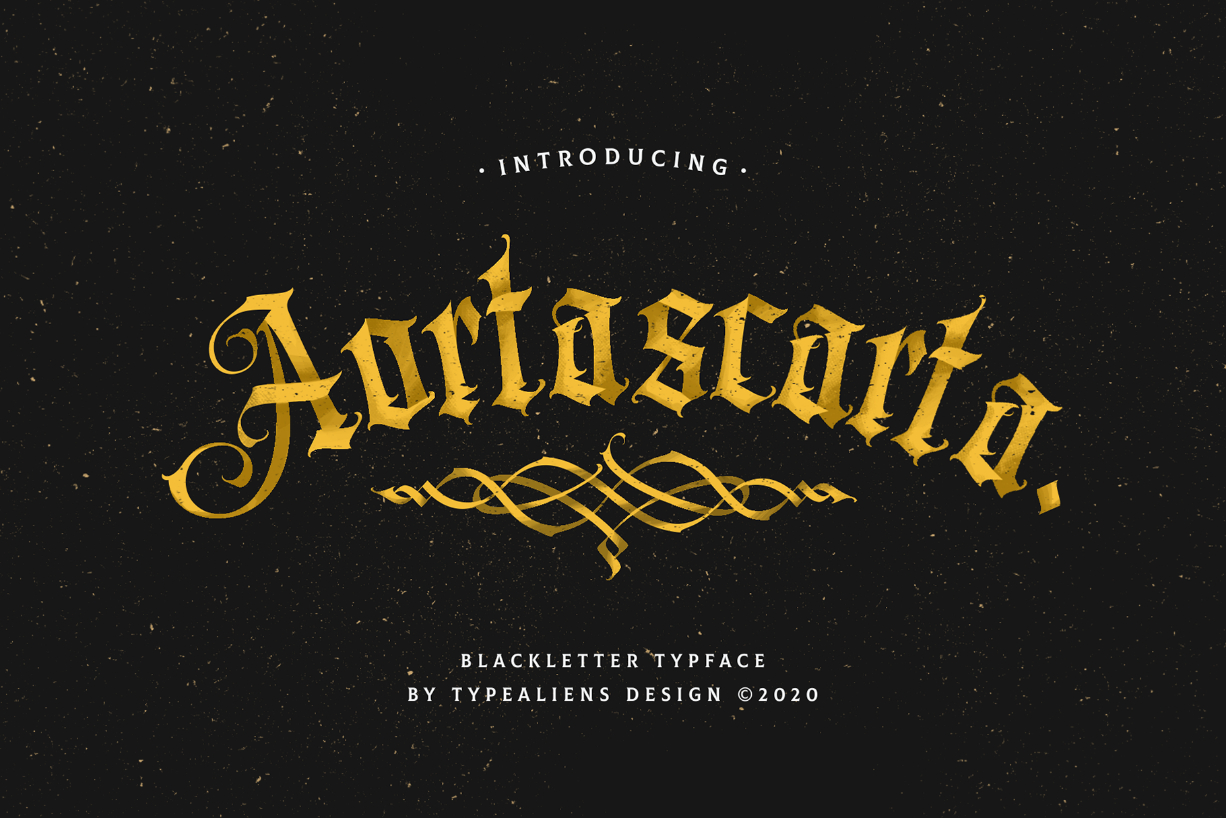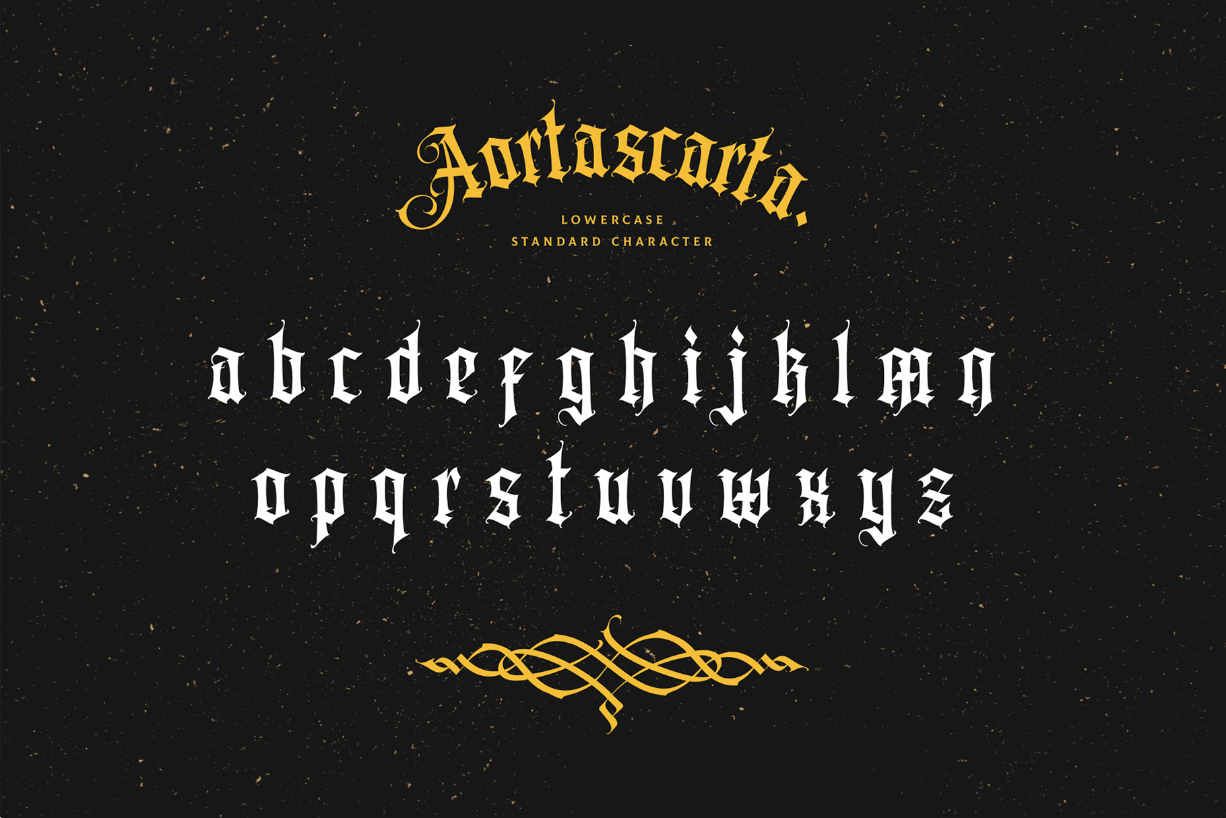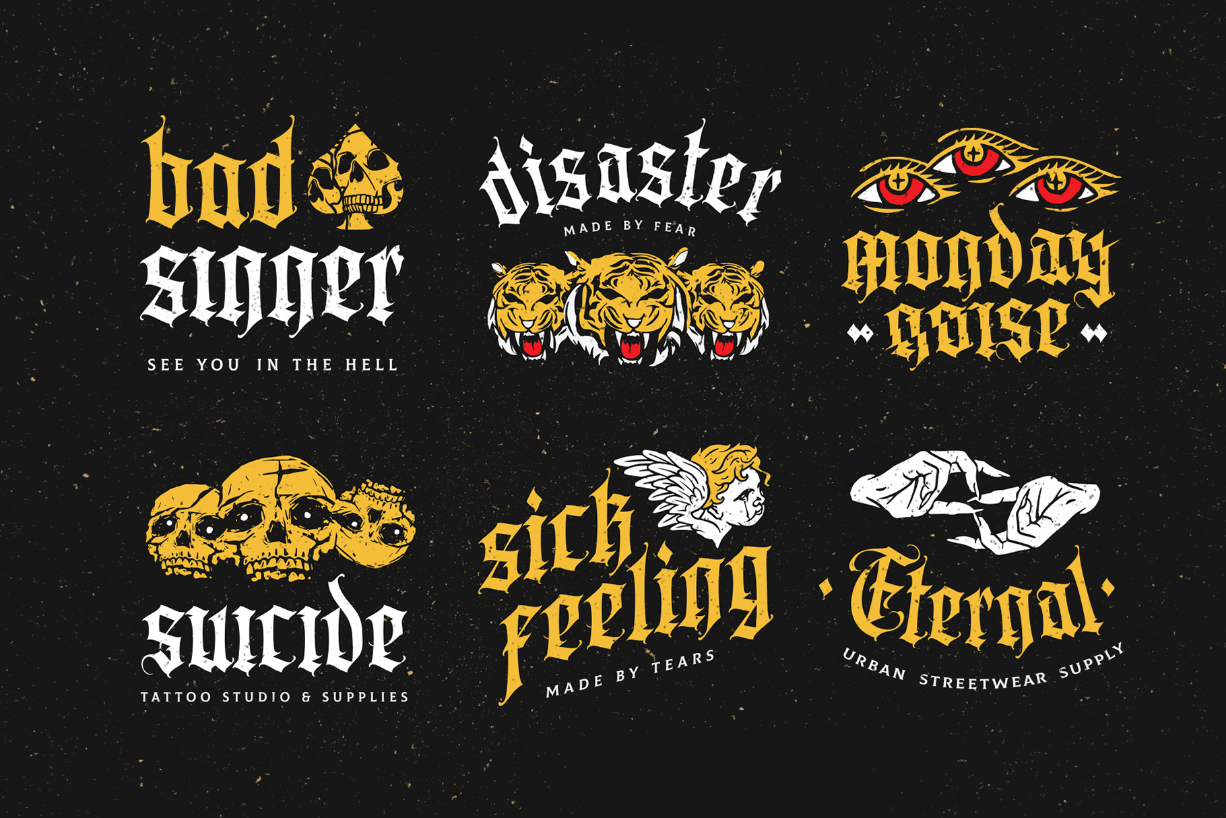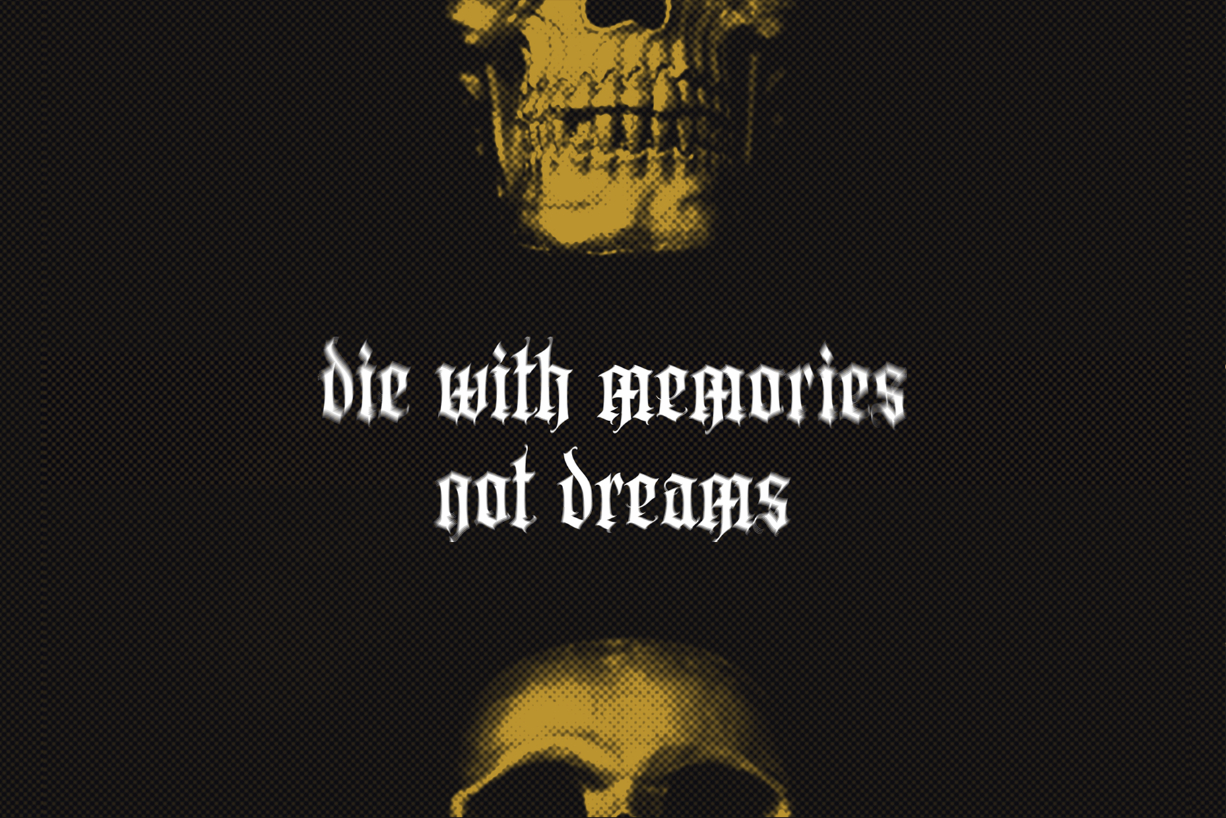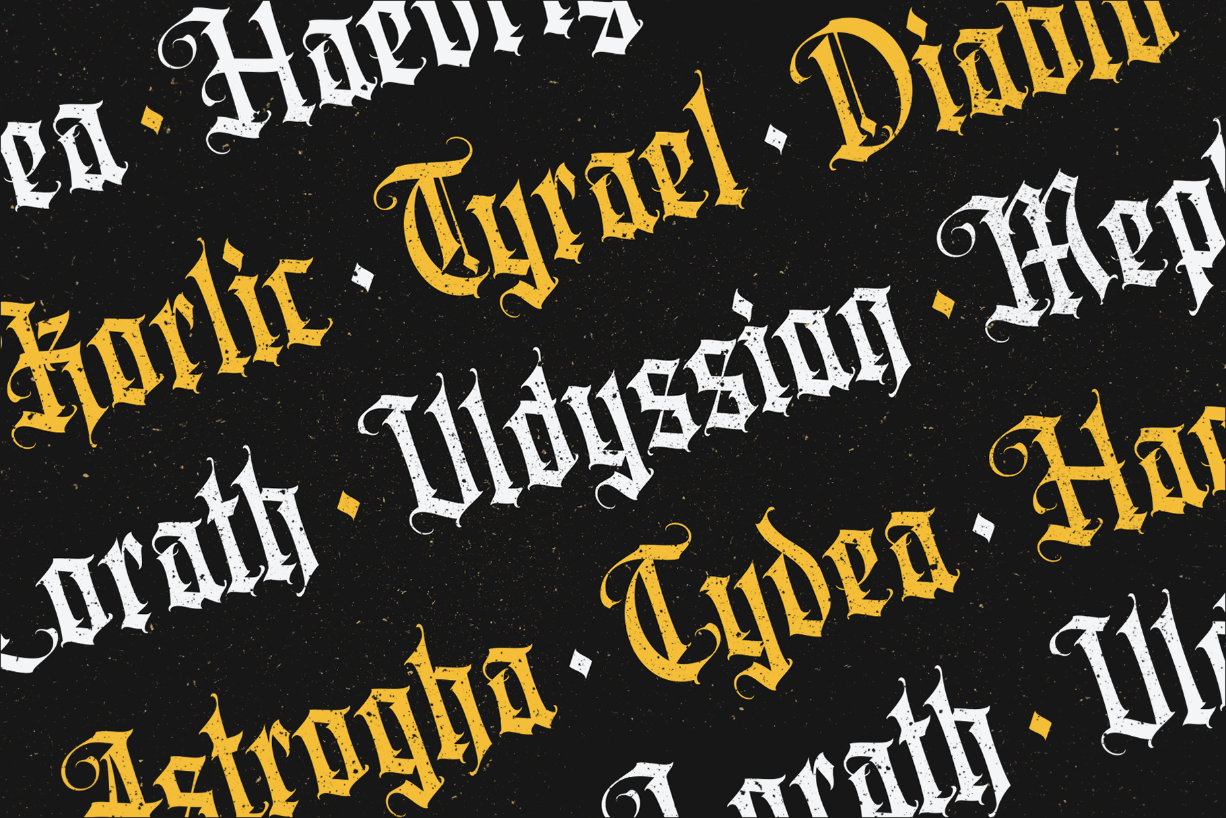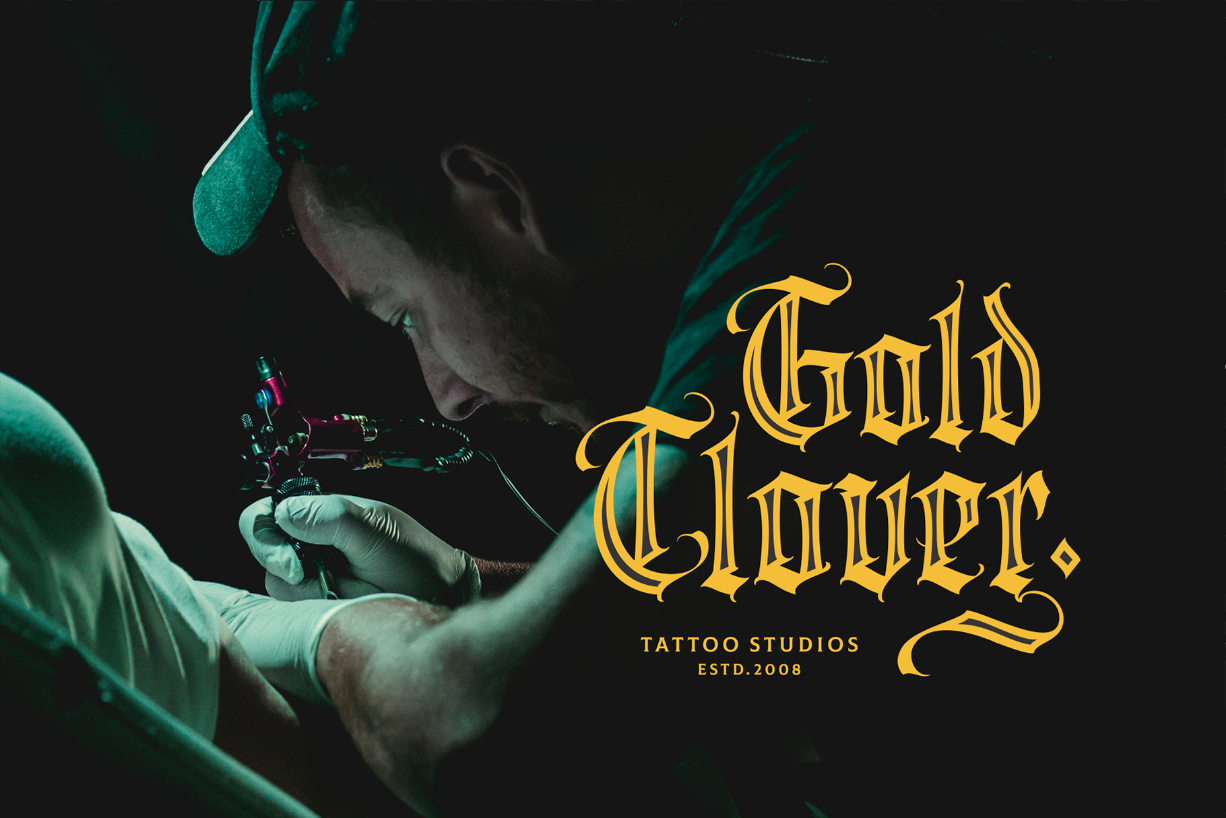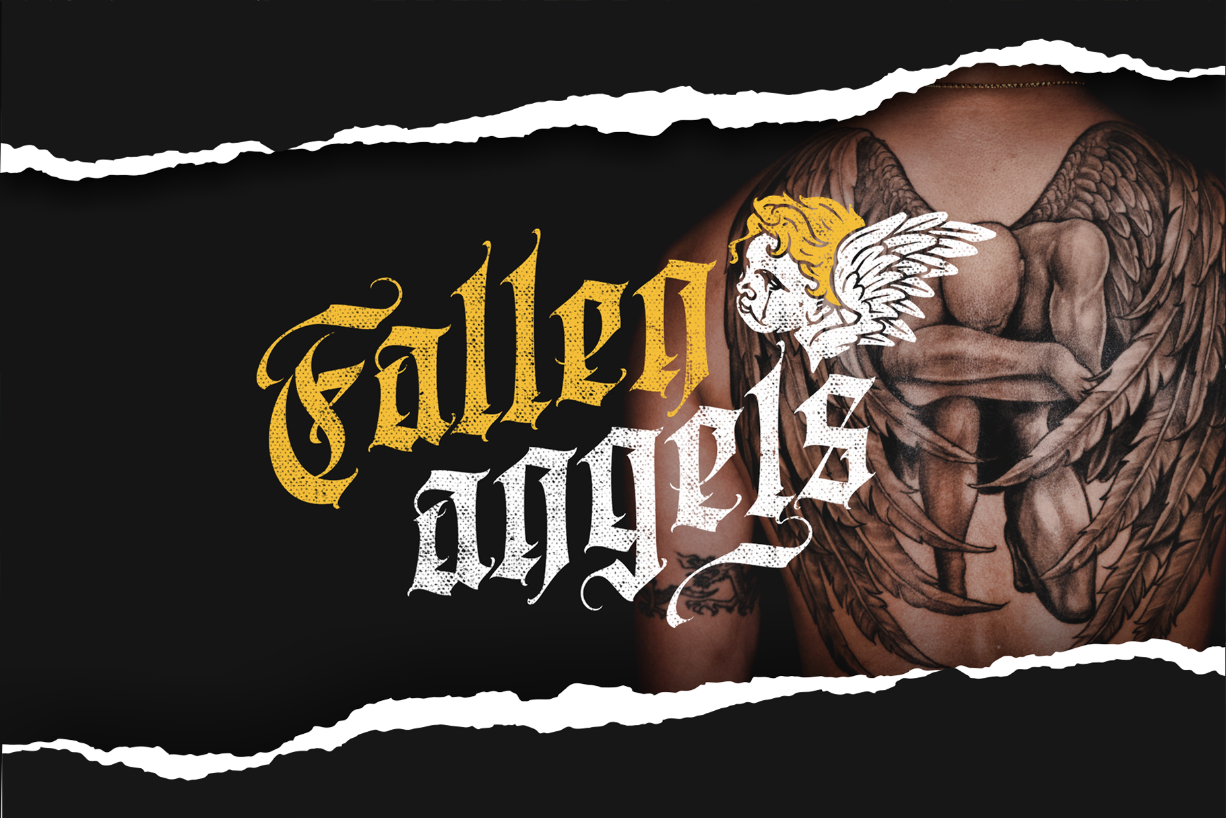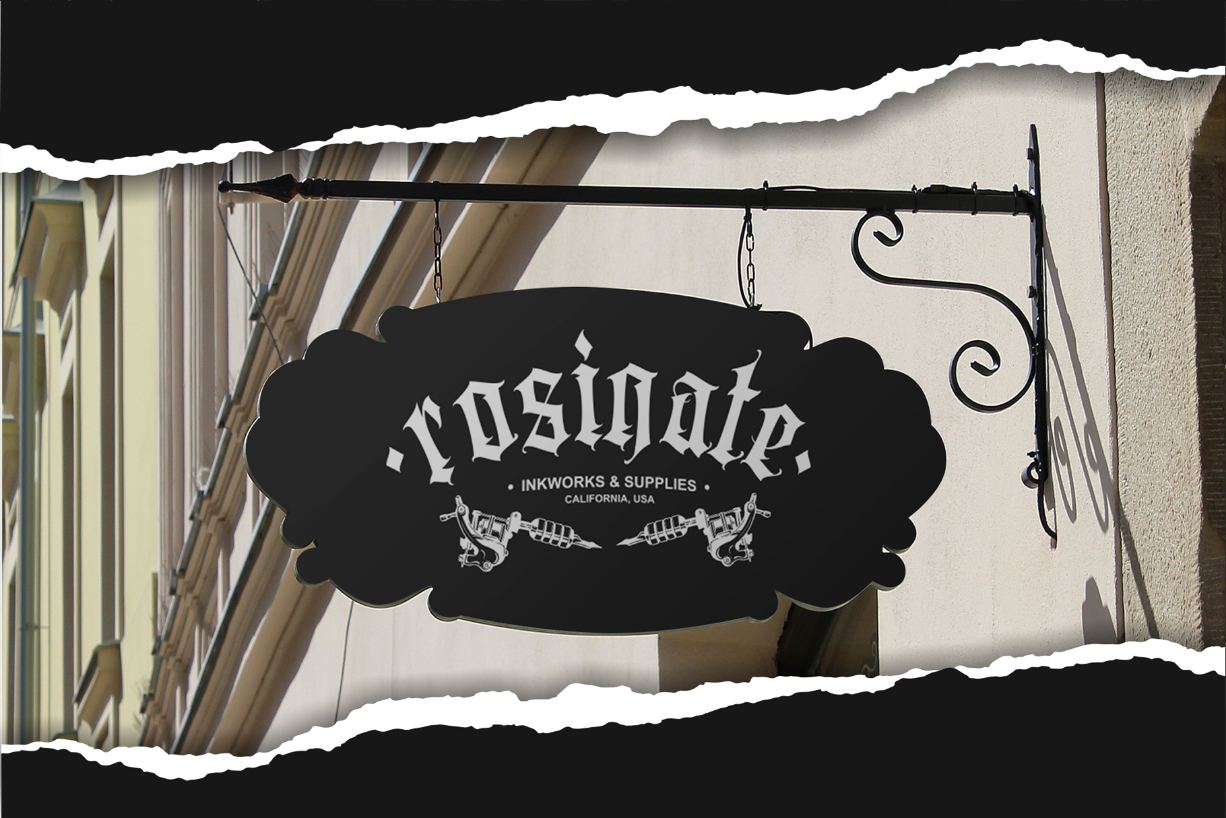
Aortascarta Font
About Aortascarta Font
Aortascarta is a unique blackletter font. It will add a special touch to your designs! It’s perfect for logos, branding, packaging, tattoo lettering, certificates and much more!